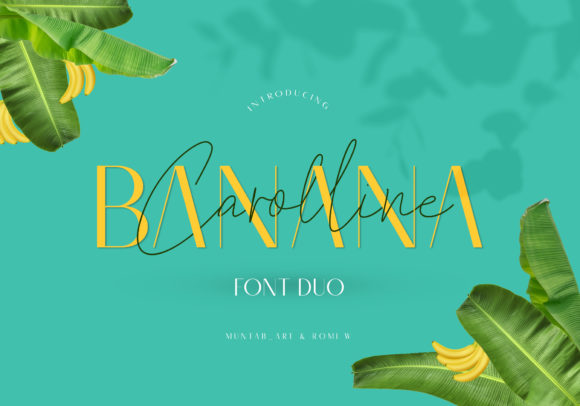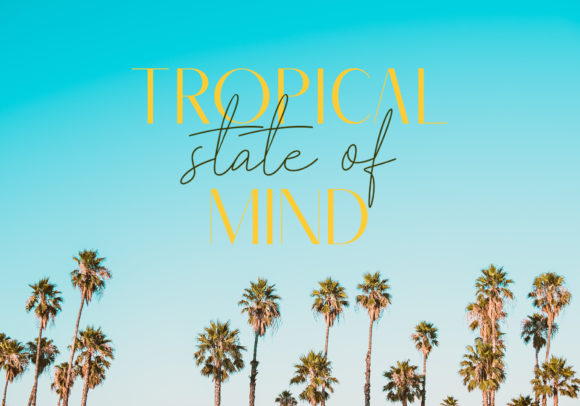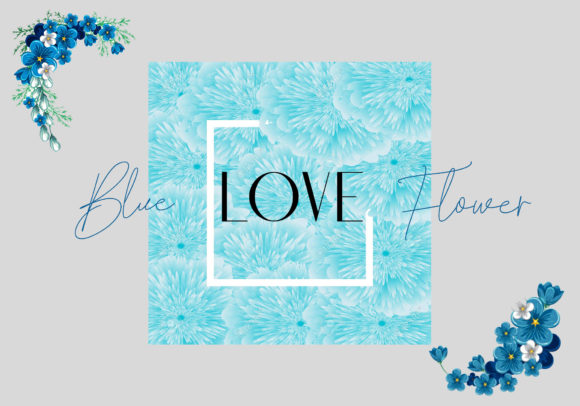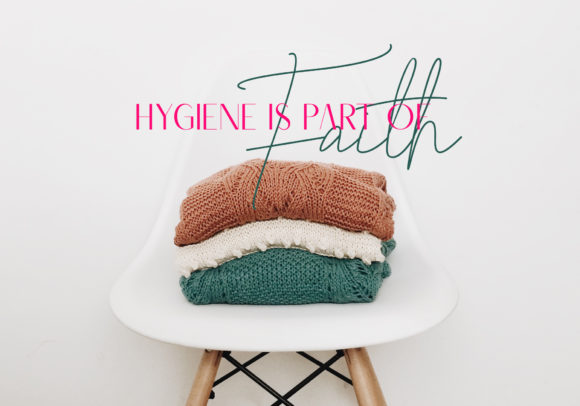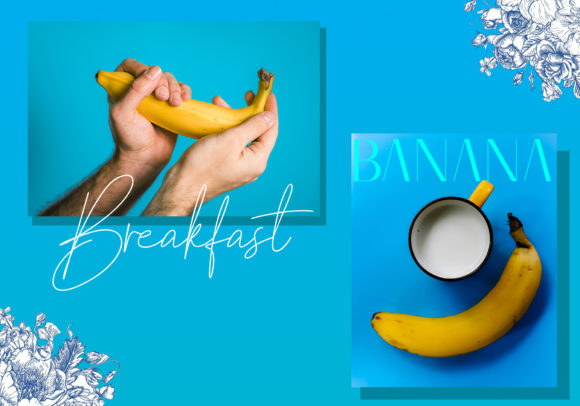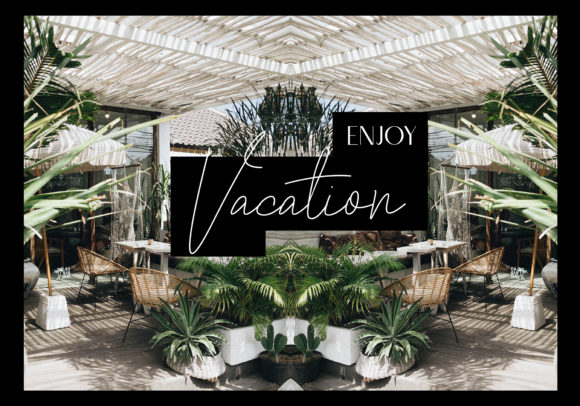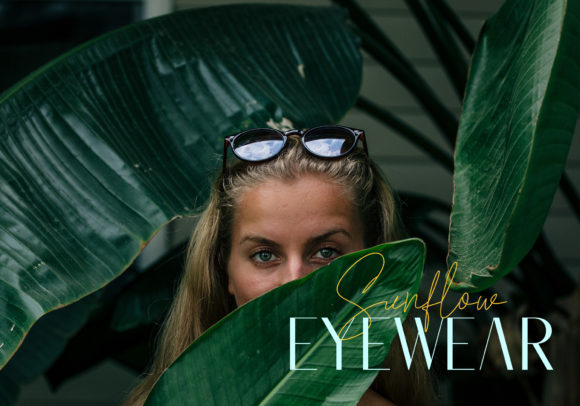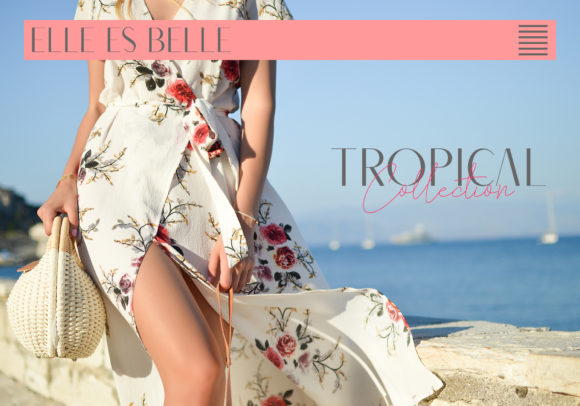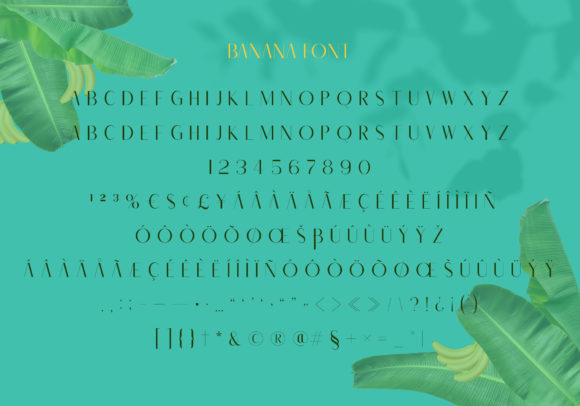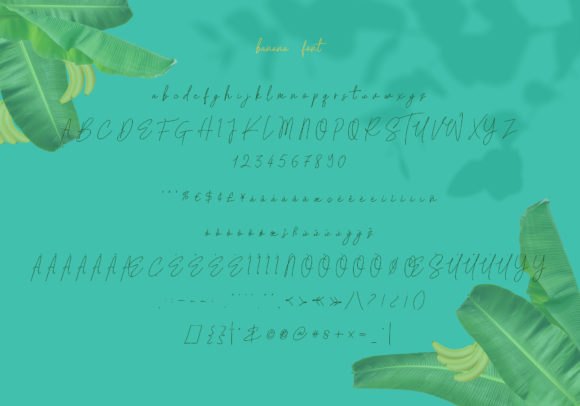
Banana Carolline Duo Font
About Banana Carolline Duo Font
Banana Carolline is a stunning font duo, featuring a bold script and a timeless sans serif font. Use it to add a slightly editorial feel to any design project.